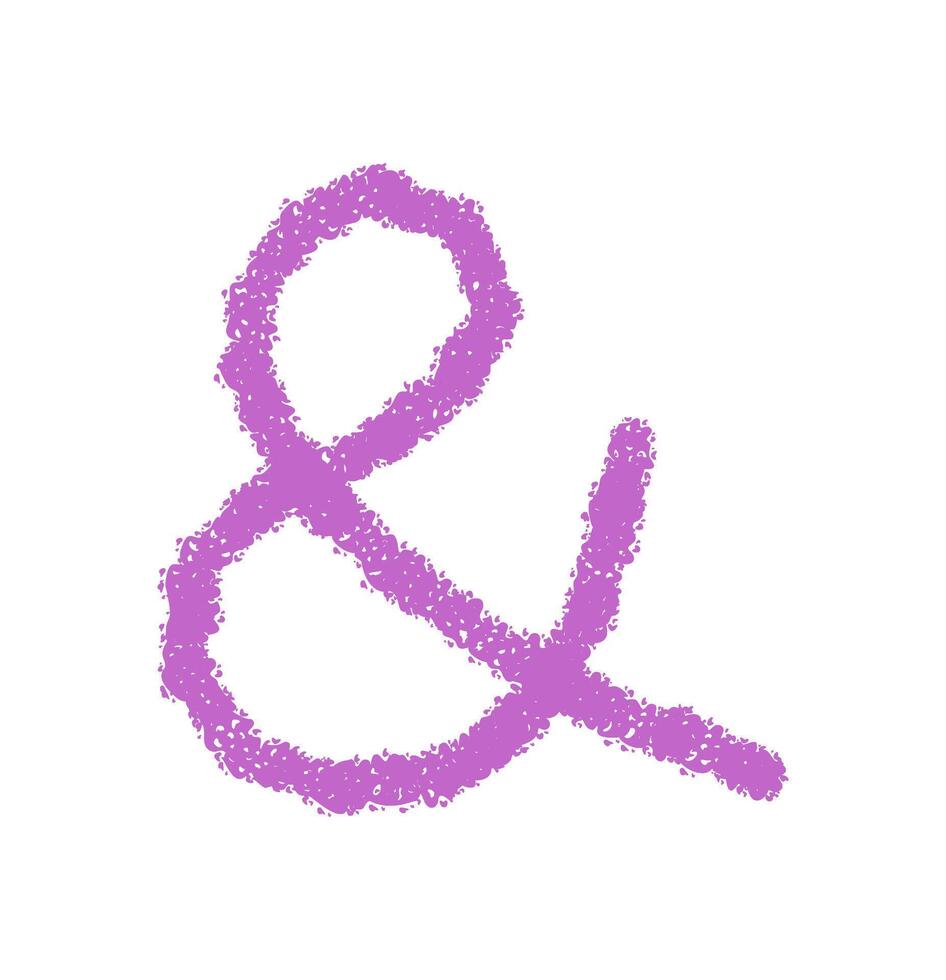
Hand drawn ampersand symbol in crayon sketch style with artistic font and bold lettering. This purple icon adds punctuation character as a creative element for modern typographic projects. Pro Vector